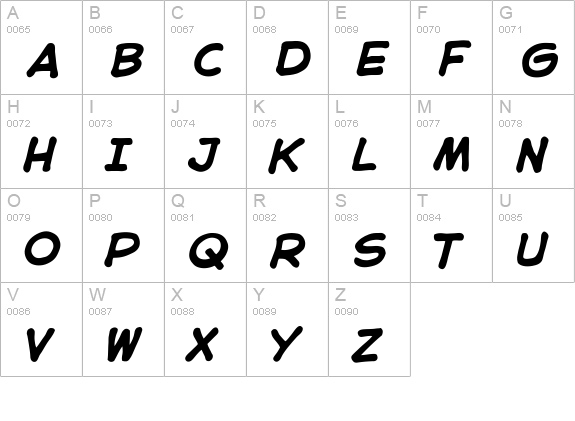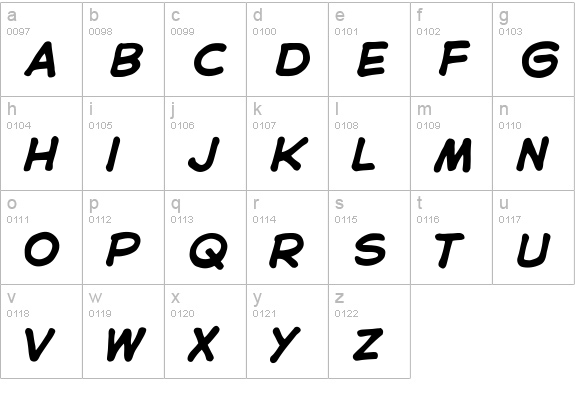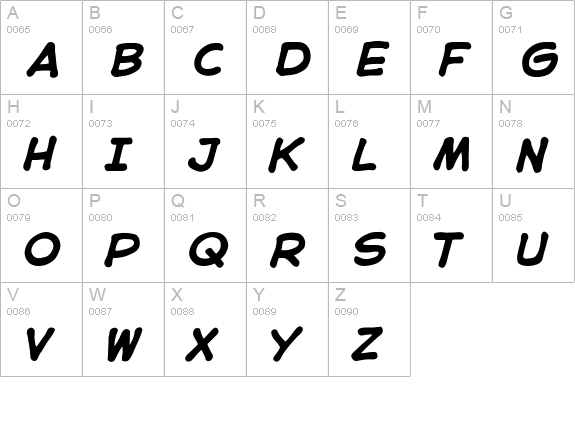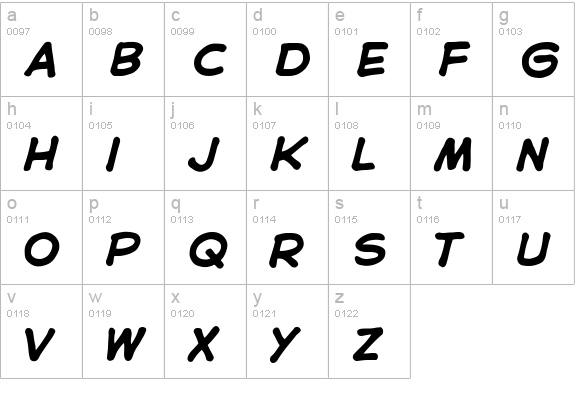
CCAstroCityInt-BoldItalic Font Details
The CCAstroCityInt-BoldItalic font is a bold and dynamic typeface that exudes confidence and modernity. Its sleek italicized design adds a touch of sophistication to any project, making it perfect for headlines, titles, and branding materials. With its clean lines and strong presence, this font commands attention and leaves a lasting impression. Best of all, the CCAstroCityInt-BoldItalic font is available for free download at FontsMarket.com. Whether you're a designer looking to add a bold statement to your work or a business owner in need of a standout font for your marketing materials, this font is a versatile and eye-catching choice that won't cost you a penny. Download it today and elevate your designs with the striking style of CCAstroCityInt-BoldItalic.